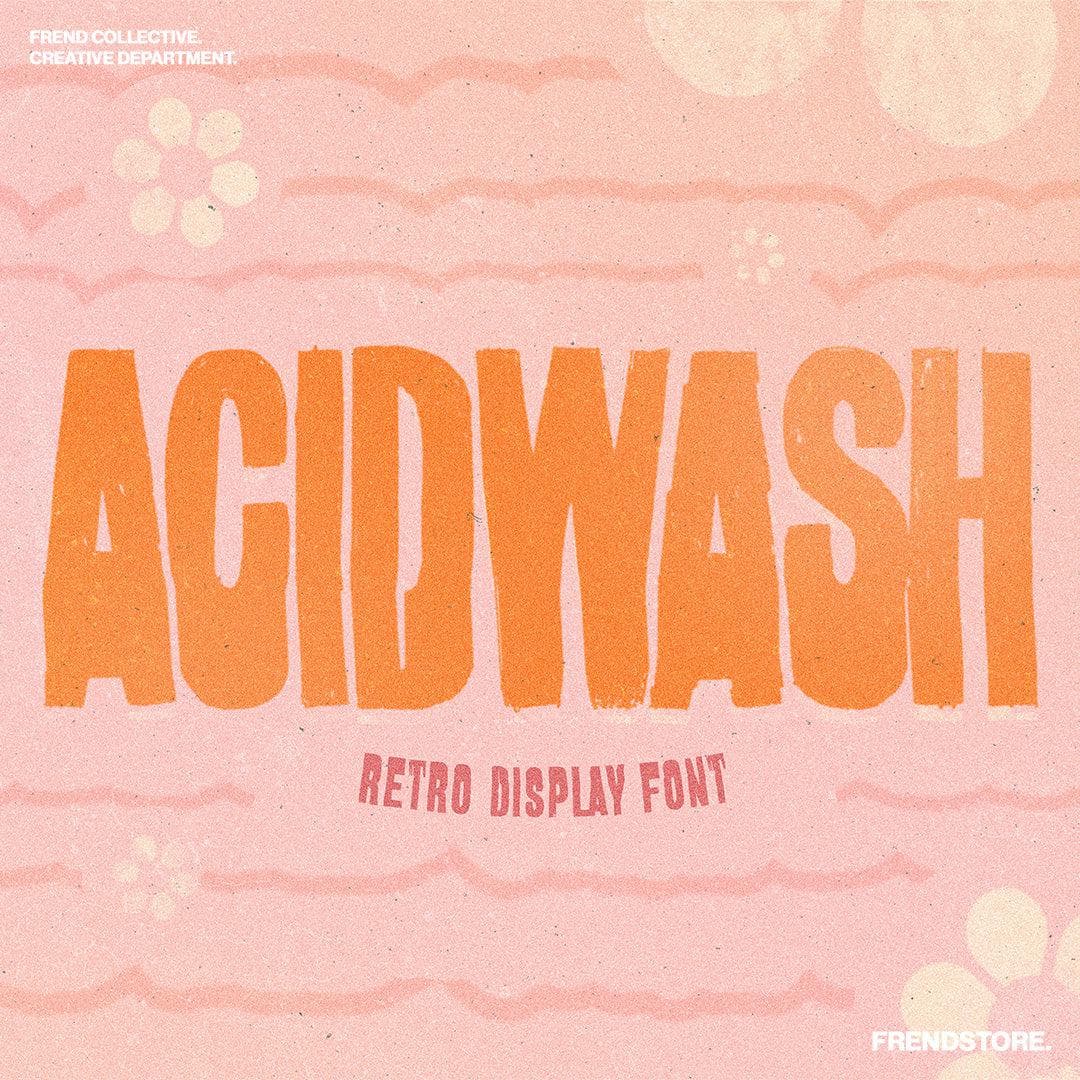
<p>ACIDWASH is a hand-drawn, bold, retro display font, inspired by 70's grunge. ACIDWASH is an all caps font and comes with 3 font variations, alternative characters & numbers and is perfect for any design project!</p>